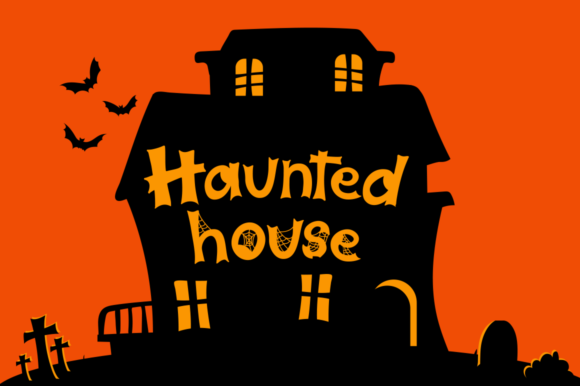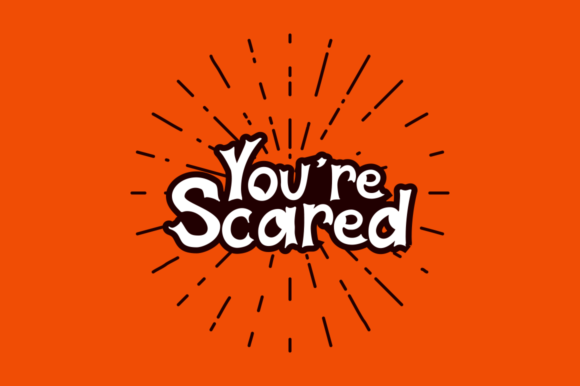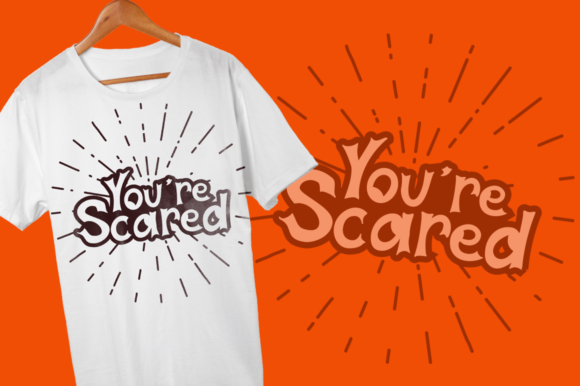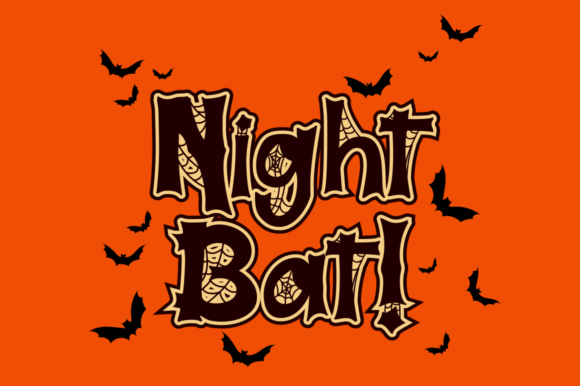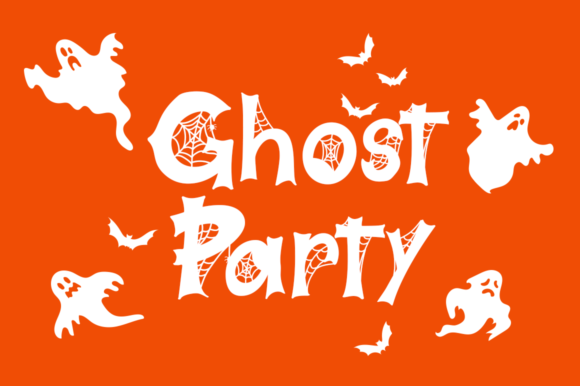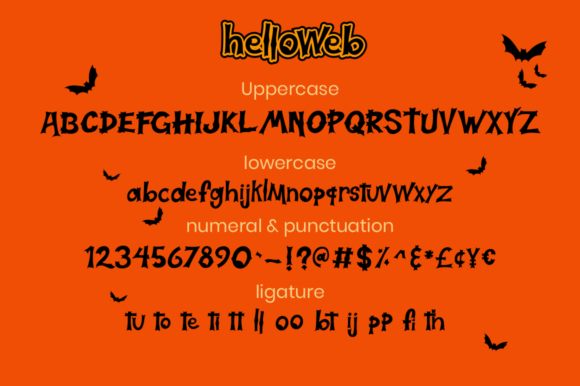
Introduction to Halloweb Font
As the sun sets on a crisp autumn evening, the moon casts an eerie glow over the trees. The perfect time to conjure up some spooky magic for your next creative project. If you’re anything like me, you’re always on the lookout for that one special design element that elevates your work from ordinary to extraordinary. And that’s where the Halloweb Font comes in – a hauntingly beautiful display font that’s sure to send shivers down the spines of your design-loving friends.
With its two styles and intricate spider web ornaments, the Halloweb Font is a game-changer for any designer looking to add a touch of high-quality Halloween magic to their work. Whether you’re creating a haunted house invitation or a spooky social media graphic, this free download is the perfect design resource to get you started. Plus, its transparent background makes it easy to use in any design scenario.
Key Features of Halloweb Font
- High-quality design resource for creative projects, perfect for adding a spooky touch to your designs.
- Unique, hand-drawn design with a transparent background, allowing for seamless integration into any design project.
- Perfect for Halloween-themed projects, but can also be used in other creative contexts to add a touch of whimsy and personality.
Honest Review: Halloweb Font
I recently stumbled upon the Halloweb Font and was immediately drawn to its spooky charm. As a designer, I’m always on the lookout for high quality design resources to elevate my creative projects.
- ✨ Unique and creative design: The Halloweb Font is perfect for any Halloween-themed project or design that needs a touch of whimsy.
- ✨ Transparent background: This feature allows for seamless integration into any design project.
While the Halloweb Font is a great addition to any design library, I did encounter a few limitations. ⚠️ The font is not ideal for professional or formal projects, and it may not be suitable for designs that require a high level of sophistication.
Overall, I’m impressed with the Halloweb Font’s creative potential and its ability to add a touch of personality to any design project. As a design resource, it’s definitely worth considering for any creative project that requires a unique and spooky flair.
Halloweb Font
To get the most out of the Halloweb Font, experiment with different font sizes, colors, and combinations to create unique and eye-catching designs. You can also pair the font with other design elements, such as images or graphics, to create a cohesive look.
The Halloweb Font is perfect for a variety of creative projects, including:
- Halloween-themed designs
- Spooky invitations and party decorations
- Creepy social media graphics and posters
- Horror movie or book-inspired designs